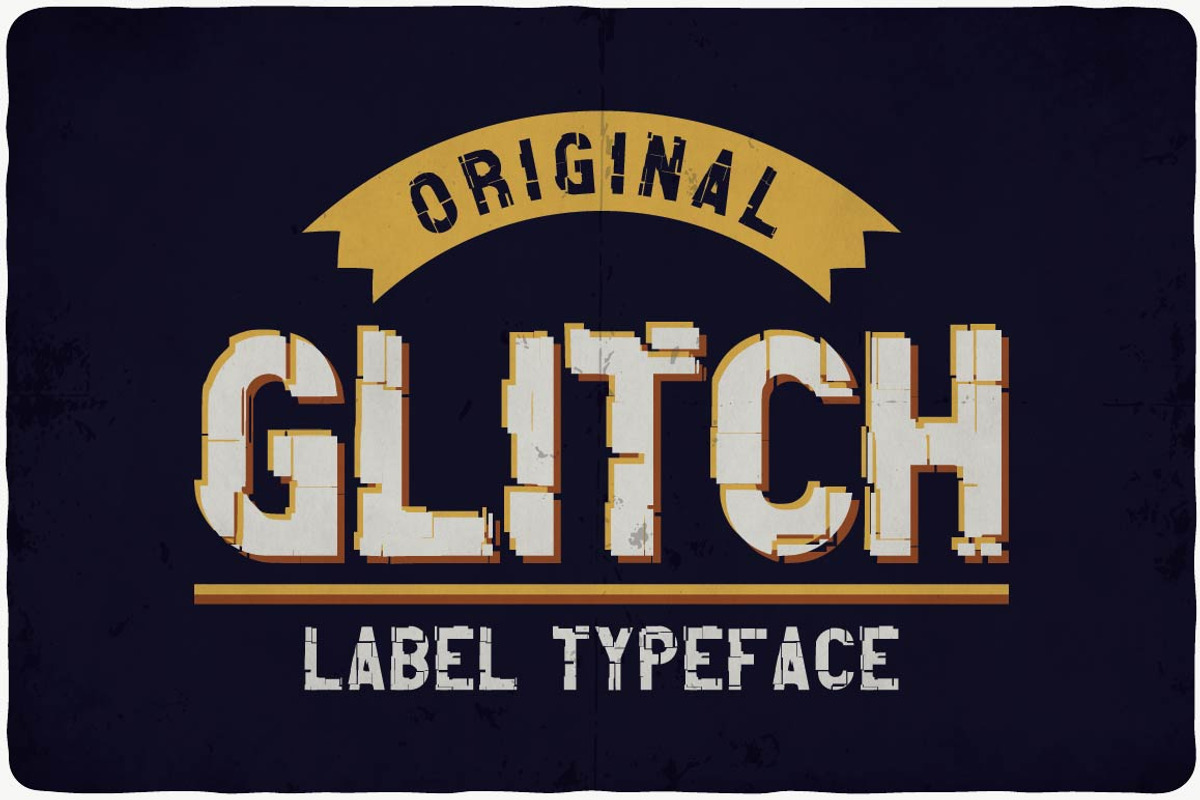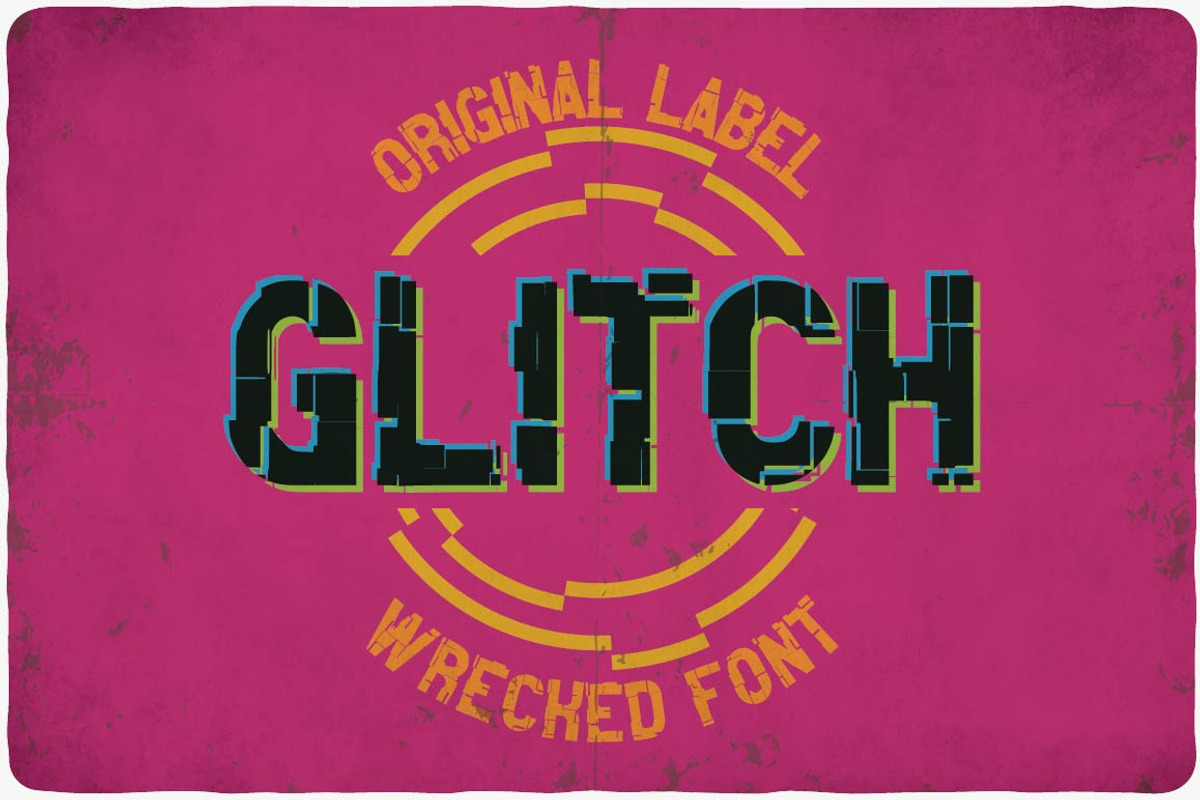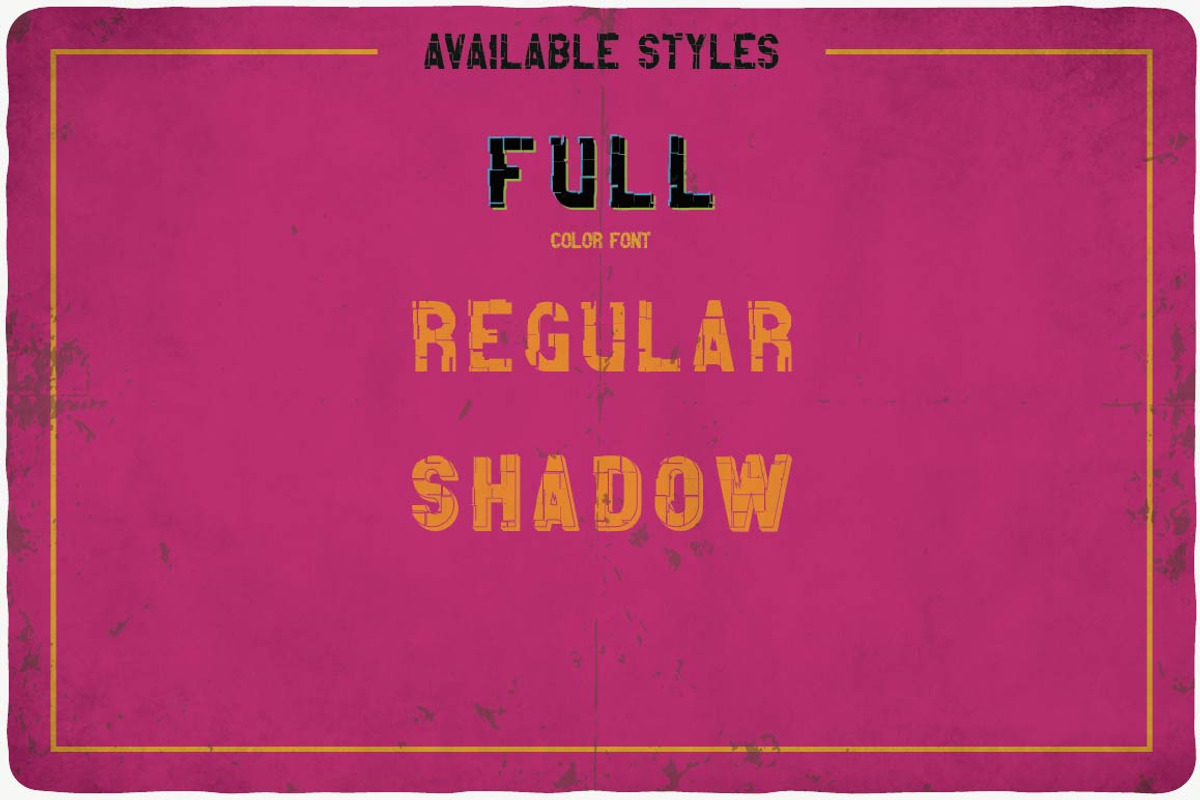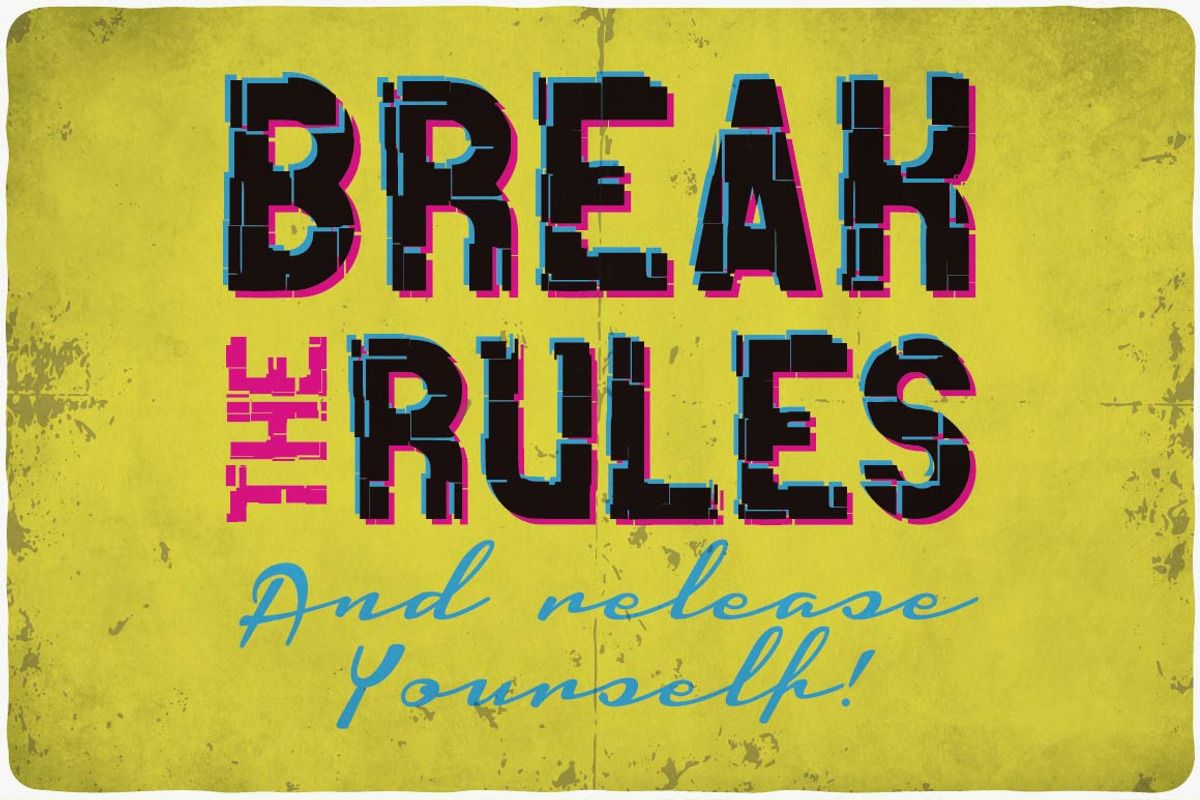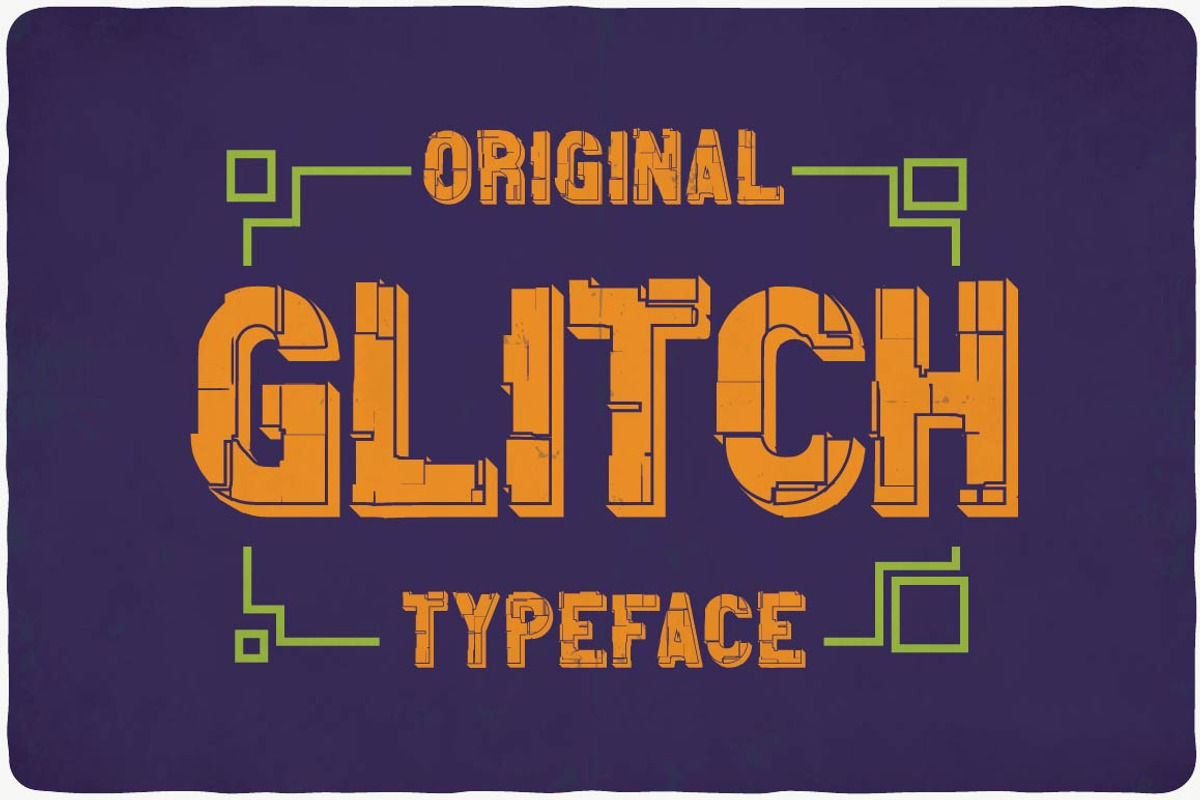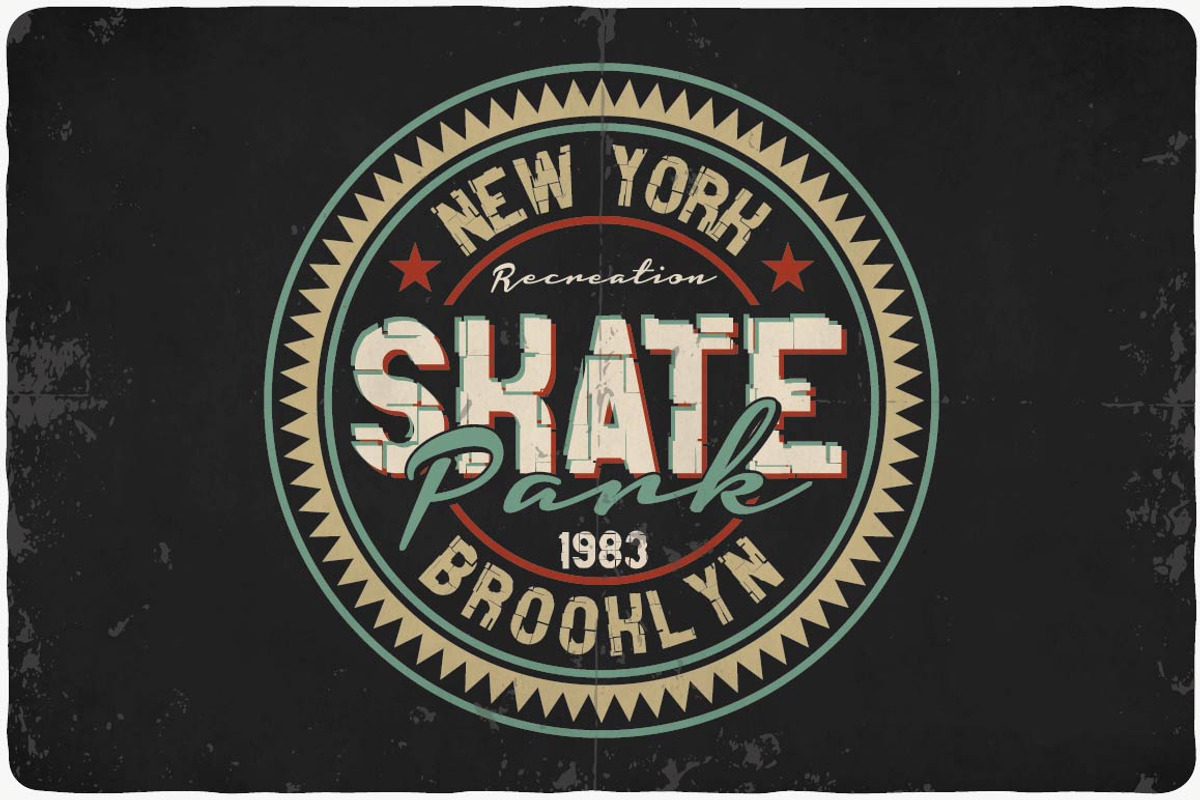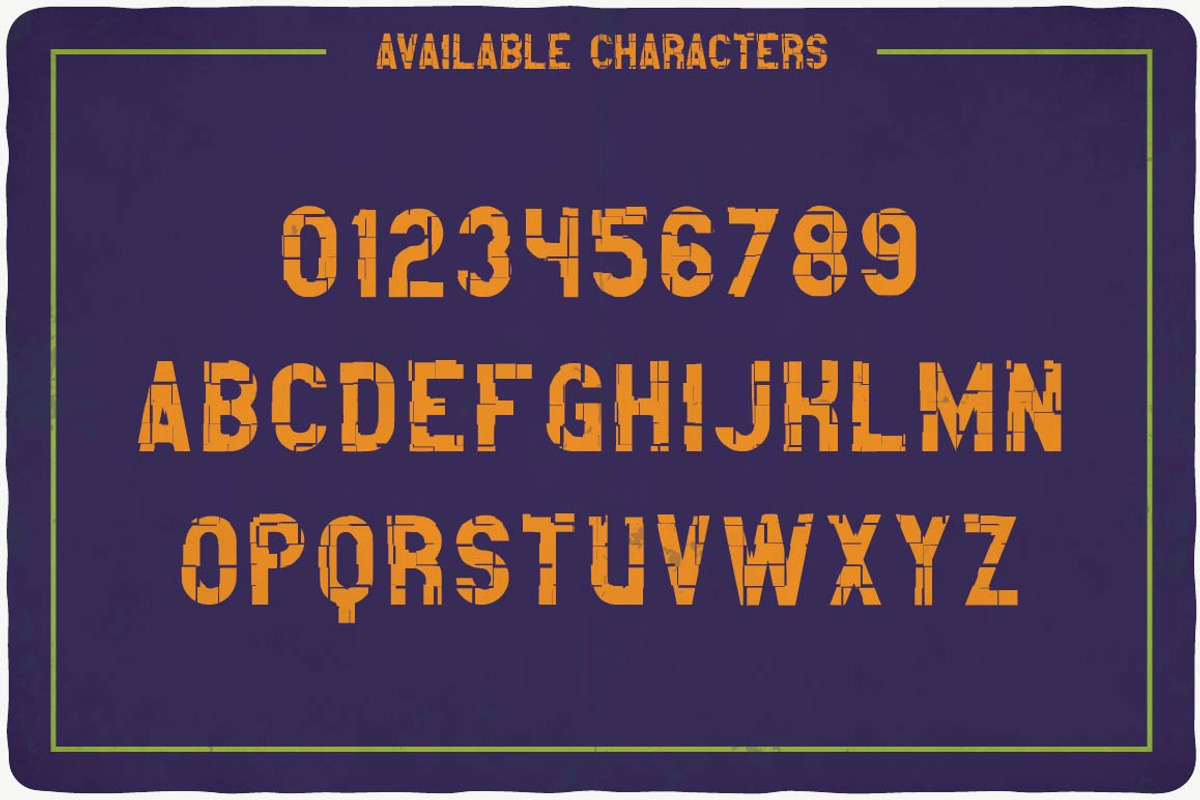
Glitch typeface
Introducing a vintage look label typeface named "Glitch". This typeface includes four styles, for sample look at 5th preview. Typeface will good viewed on any yours design.
Glitch typeface by VozzyStock fits naturally into Branding, posters, packaging, typography.